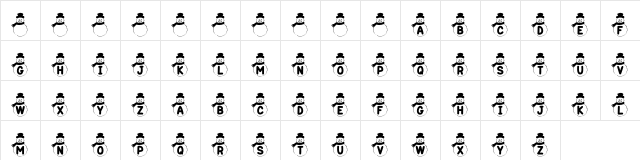
KR Snowman Regular
Design Context for KR Snowman Typeface
KR Snowman is a composed and adaptable typeface that performs quietly and consistently across a wide range of design contexts.